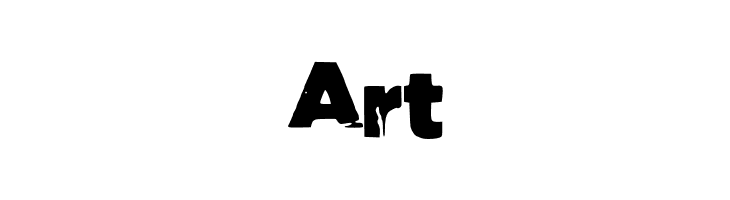
A bold, distressed font with a vintage, western saloon style.
A distressed, grunge-style font with a textured, decomposed appearance.
A bold, distressed font with a vintage Western style.